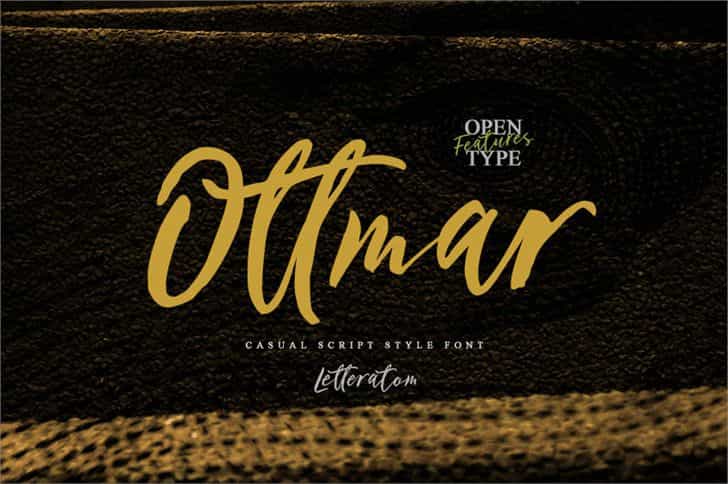
Ottmar is a casual script font that is casual and can be used for branding, logos, headers, and display purposes, among others, since it was designed using a brush on paper with much attention to give it the natural feel it has. By adding contextual alternate and ligature, it will provide a very special touch if applied to the design.